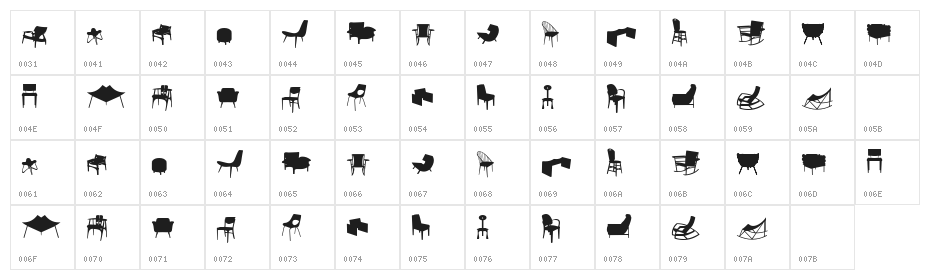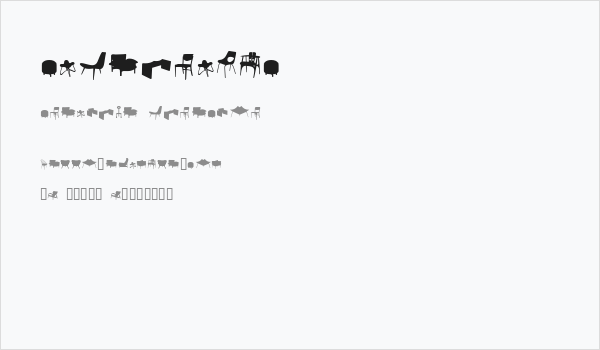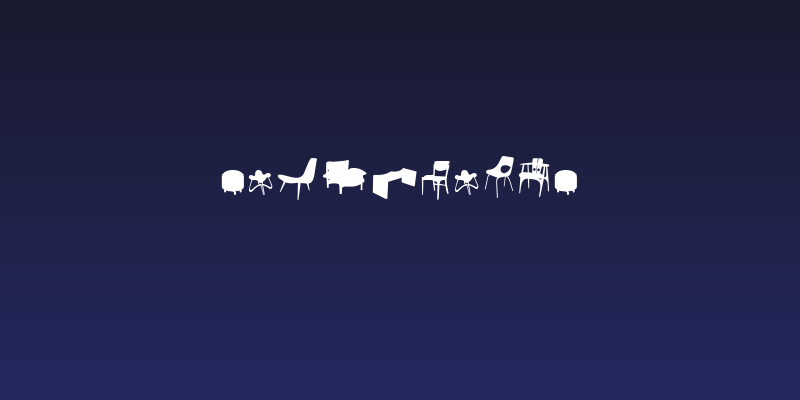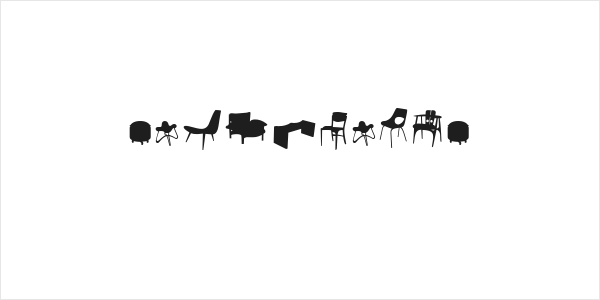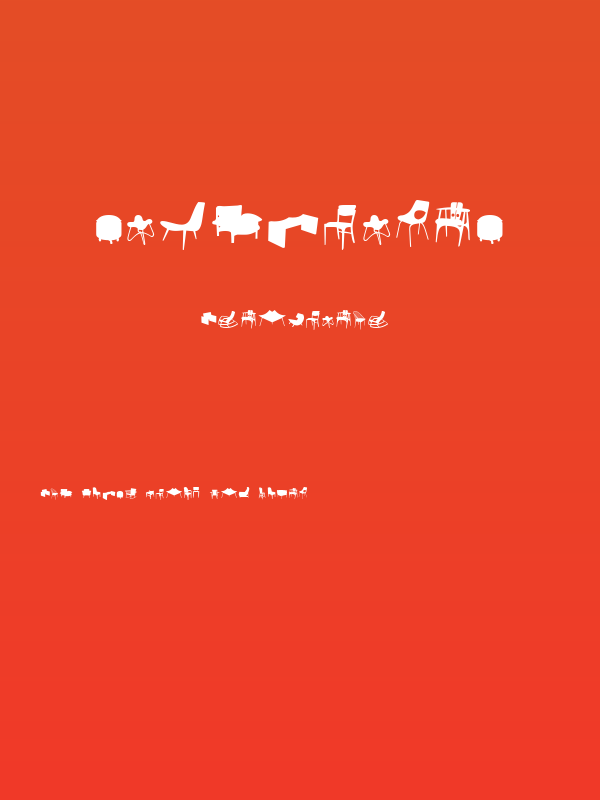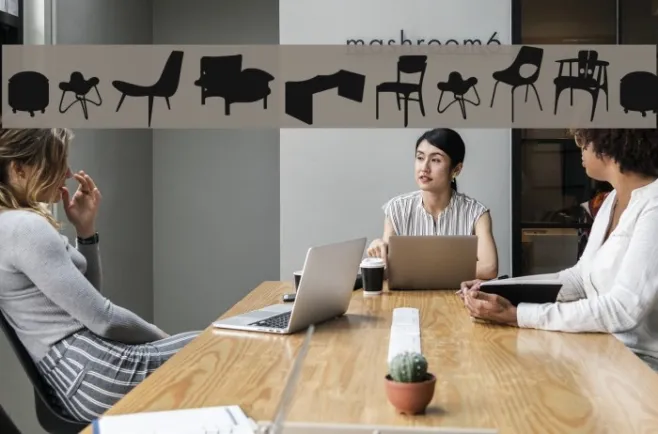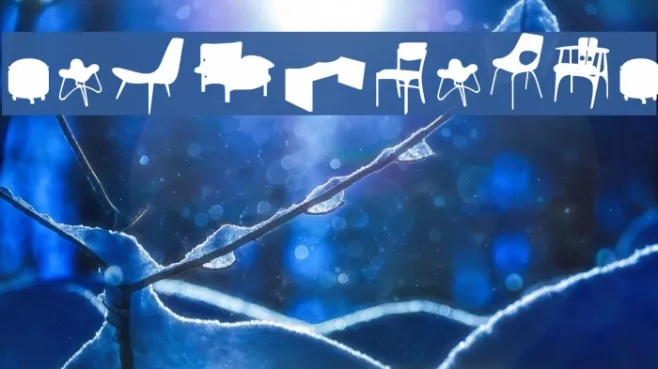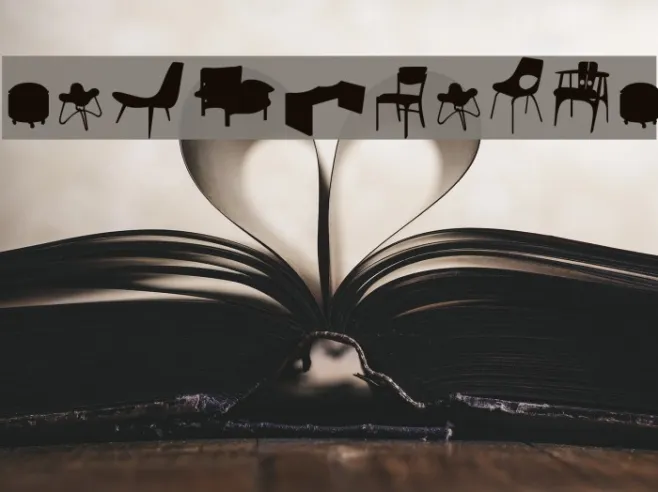
CadeirasPC Font
CadeirasPC Description
A decorative dingbat font featuring a variety of iconic chair silhouettes and simple rectangular frames, each glyph representing a different chair design or a bold rectangle. The style is playful and illustrative, with solid black fills and no typographic letterforms.
| Overall Style | Decorative, Playful, Modern |
| Use Case | Icons, Decorative elements, Thematic branding |
| Proposed Projects | Interior design presentations, furniture catalogs, posters, branding for furniture stores, playful editorial layouts. |